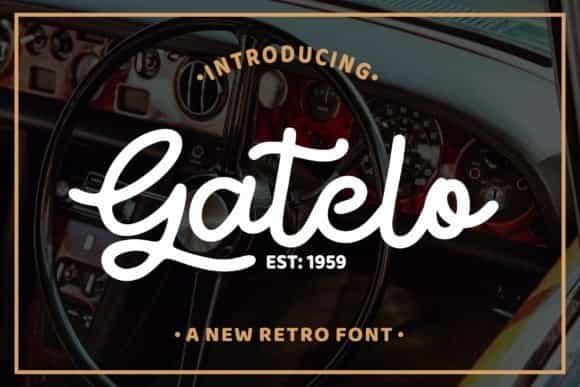
Gatelo is a very detailed retro handcrafted font which has been inspired by hand-drawn lettering and vintage style to work together in aesthetic for creating masterful hand lettering designs in a flash. The font is clean, clear, powerful, traditional and has a hand-drawn effect.